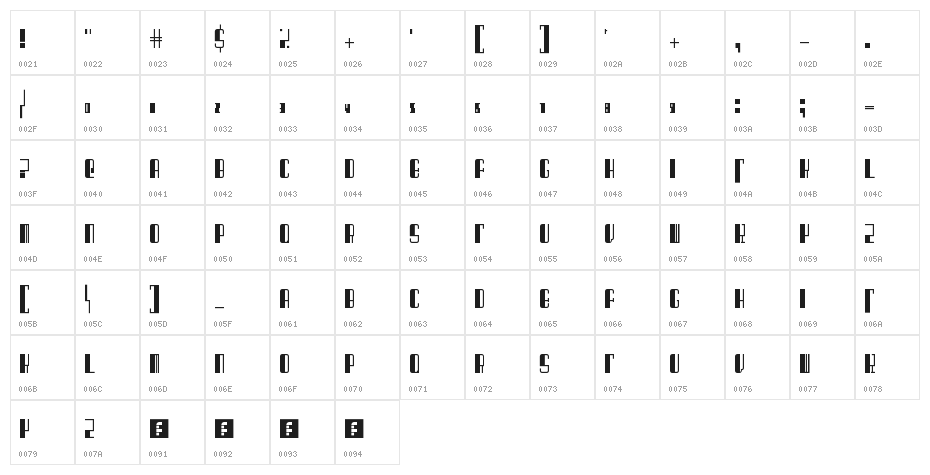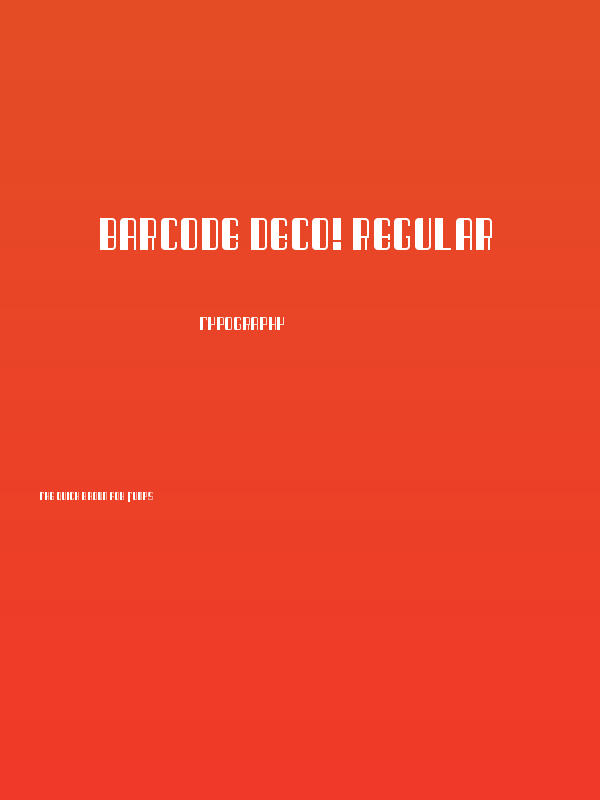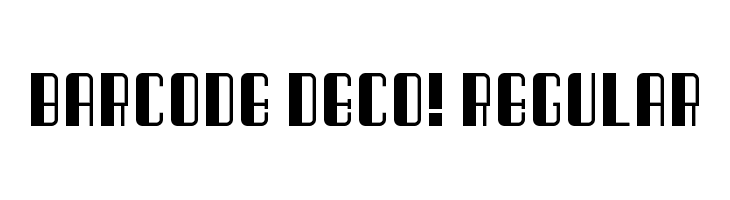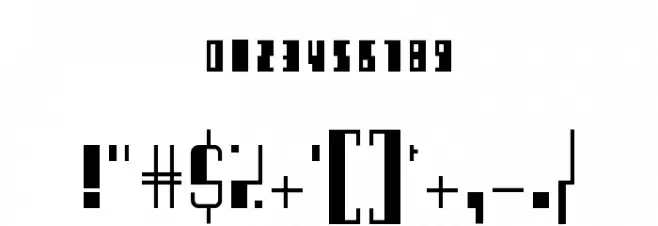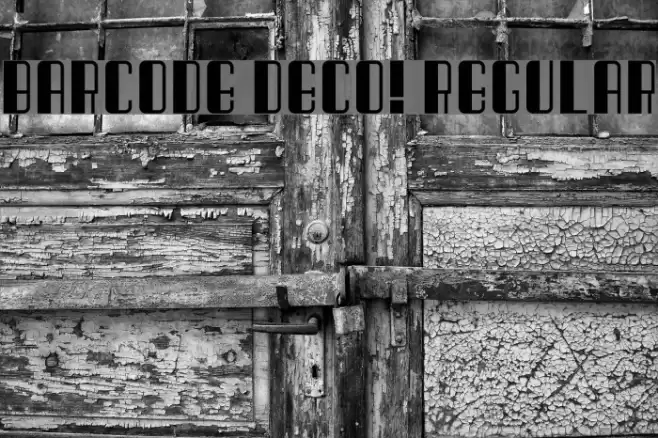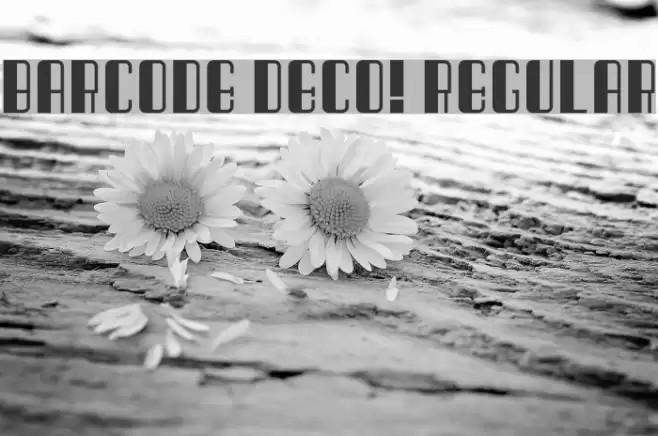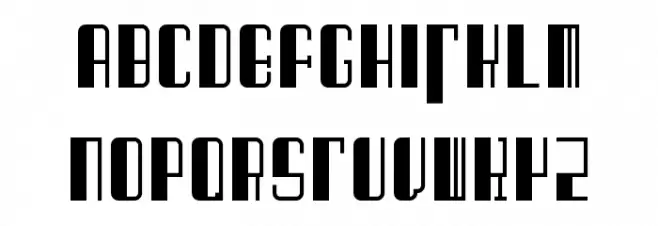
Barcode Deco! Regular Font
This font features a unique blend of Art Deco and barcode aesthetics, characterized by its bold, geometric shapes and vertical lines that mimic the look of a barcode. The uppercase letters are distinct with their tall, narrow forms and sharp angles, creating a striking visual impact. The lowercase letters maintain the same geometric style, offering consistency across the typeface. Numbers are similarly styled, ensuring uniformity throughout. Special characters are creatively designed, incorporating the same vertical line motif, which adds to the font's cohesive appearance. This typeface is ideal for projects that require a modern yet retro feel, combining elements of technology and classic design.
| Proposed Projects | Ideal for branding, posters, and packaging design that require a modern, technological edge. |